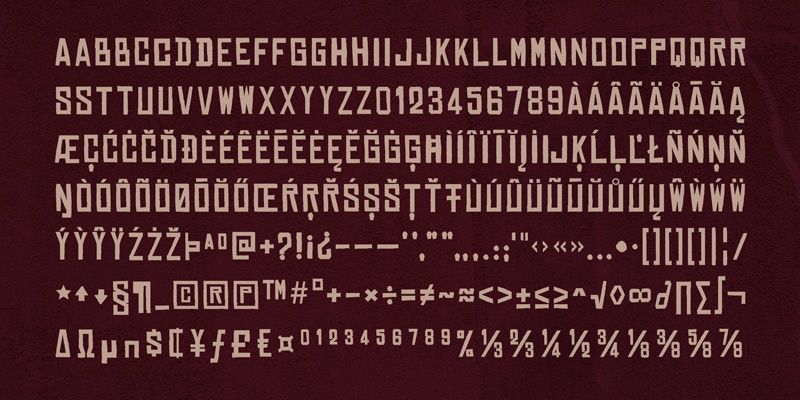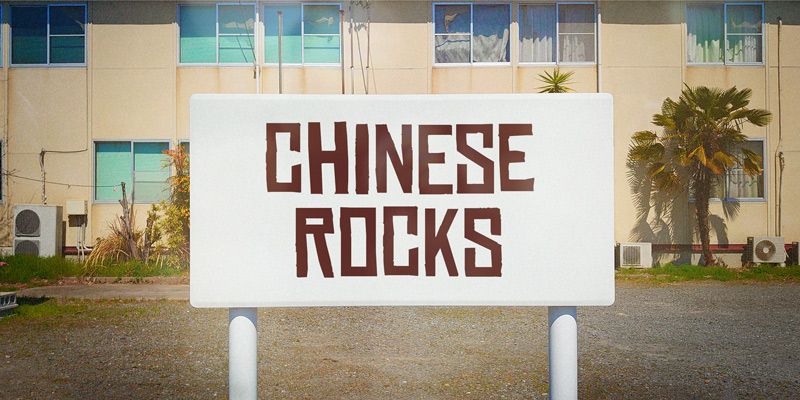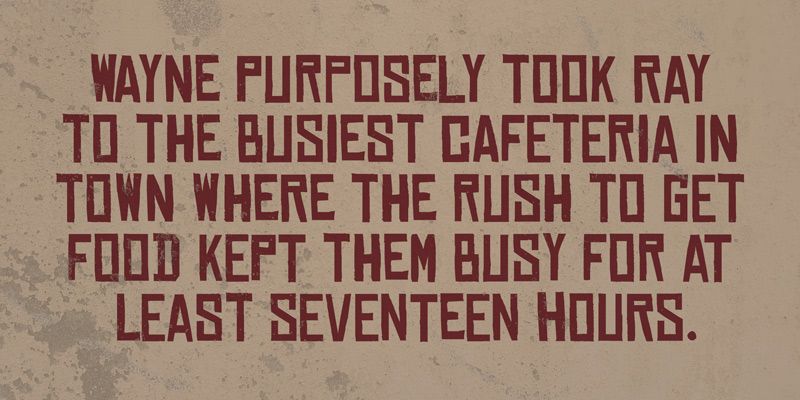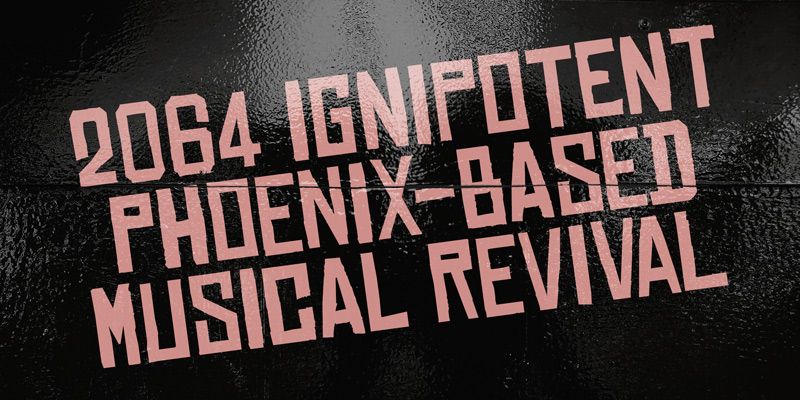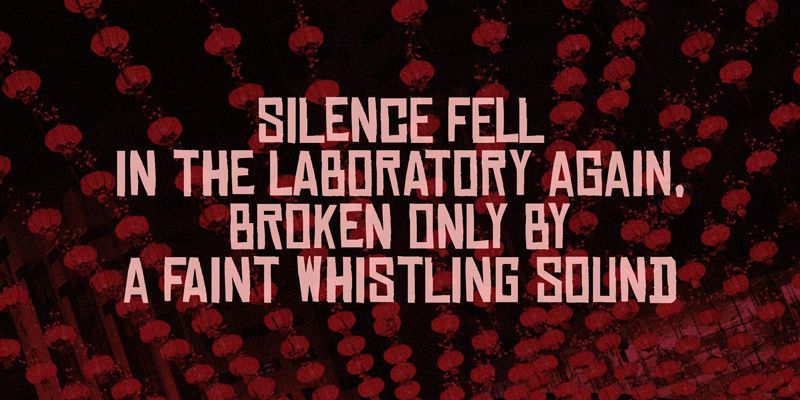
Chinese Rocks draws its rough, hand-cut character from rubber-stamp lettering found on imported merchandise containers. Uneven edges and heavy, irregular strokes suggest marks made for freight rather than formal display. This direct, battered voice can give a game title, band logo, sports campaign, streetwear graphic, or product label the presence of a marking applied to a crate. The name points to the shipping source; the letterforms do not imitate Chinese writing. Its imperfections become more convincing when the surrounding design gives them a material context: a carton, a label, a poster, or a weathered surface.